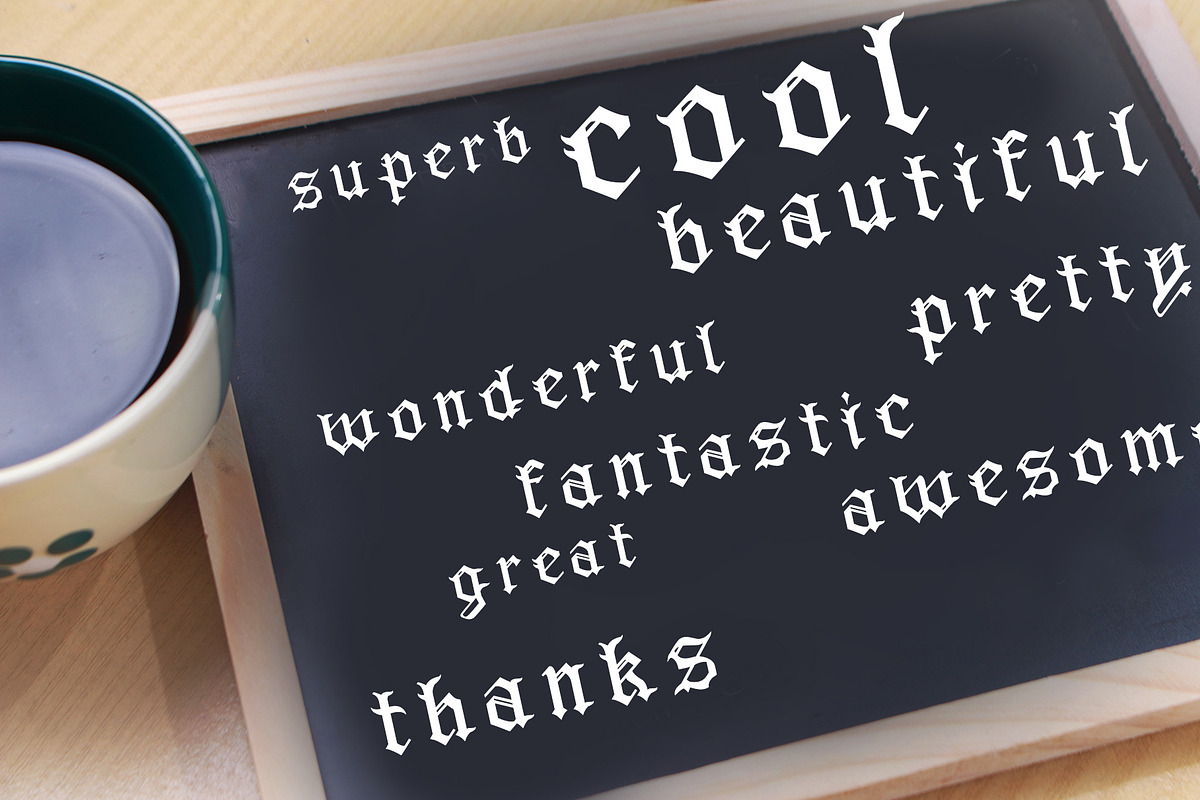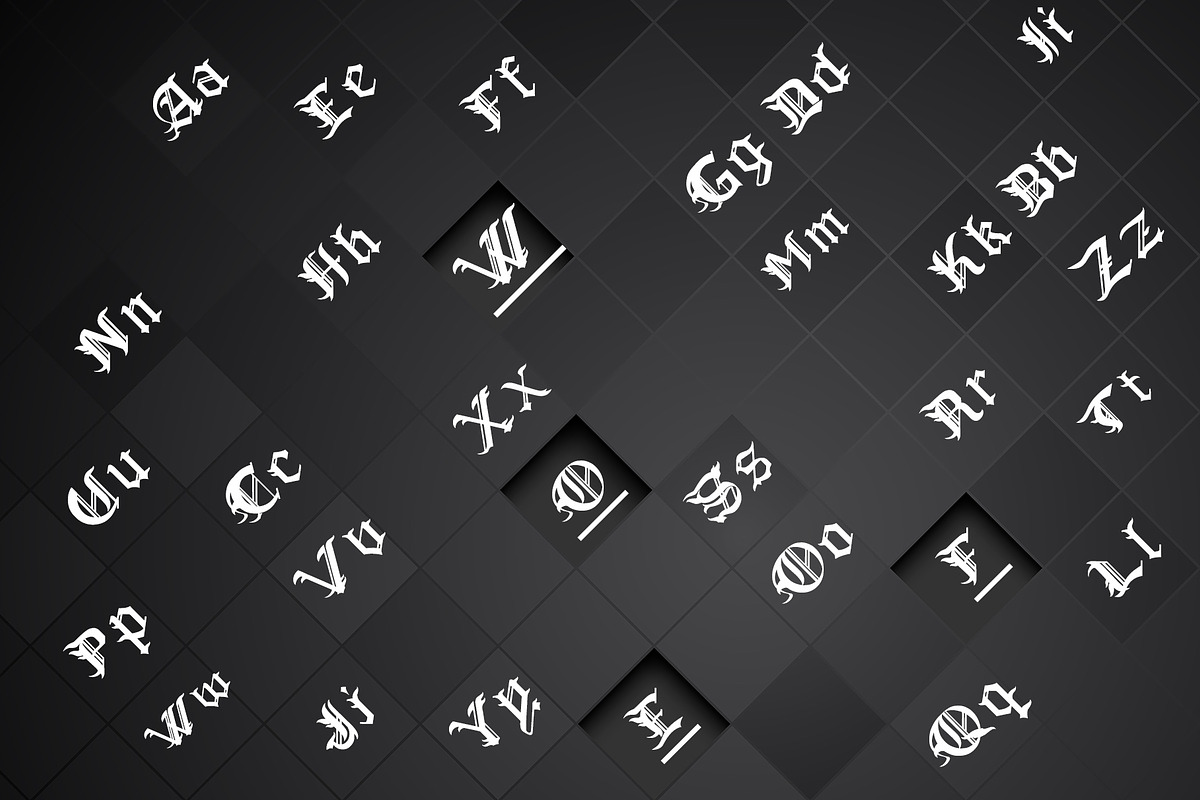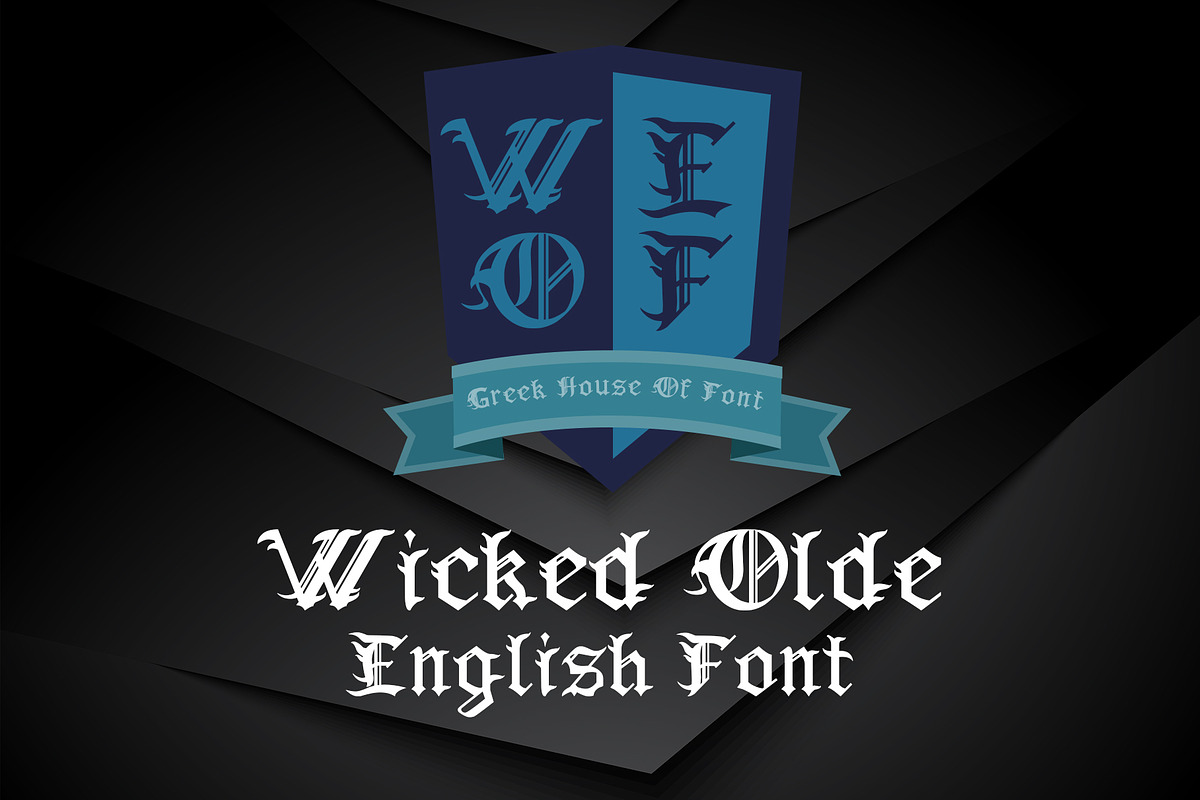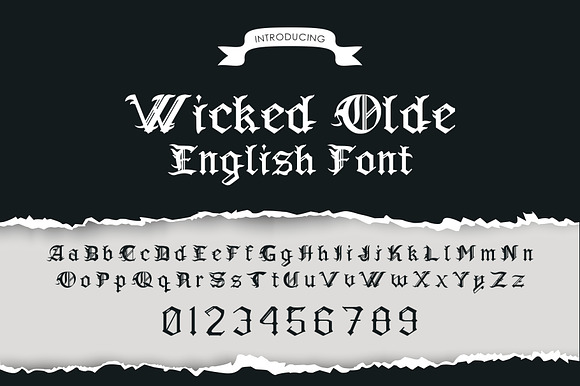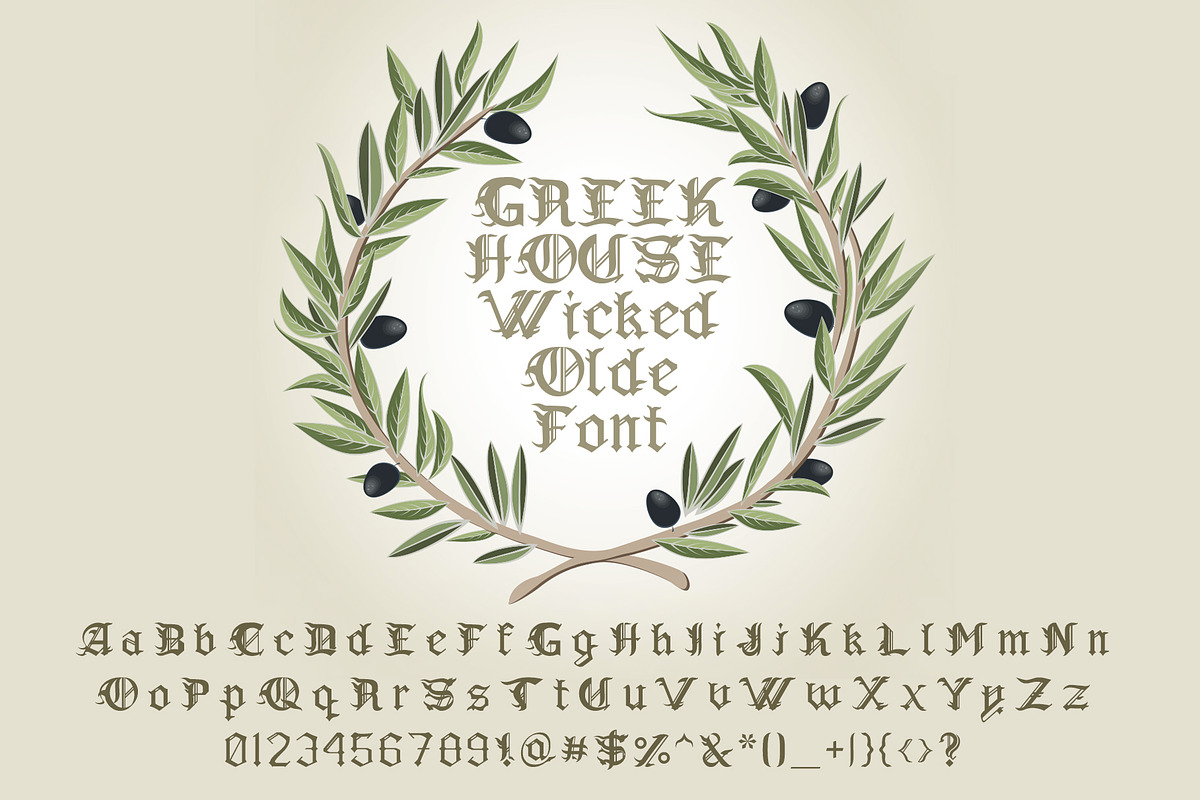
Wicked Olde English Font
This Wicked Olde English font is perfect if you are looking for a unique olde English font.
Why Wicked Olde English Font is worth a look
Wicked Olde English Font by Fontastic Ventures fits naturally into Branding, posters, packaging, typography.